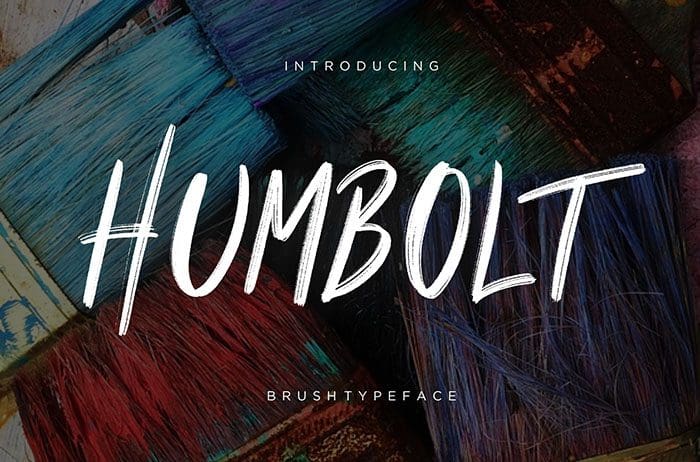
Humbolt Brush Font
Humbolt is a hand-drawn brush font with a bold and masculine style perfect for your amazing projects. Perfect for branding projects, logos, and more. Thanks to Creatype Studio for sharing this font! Take a look at this portfolio for more of his stunning fonts.